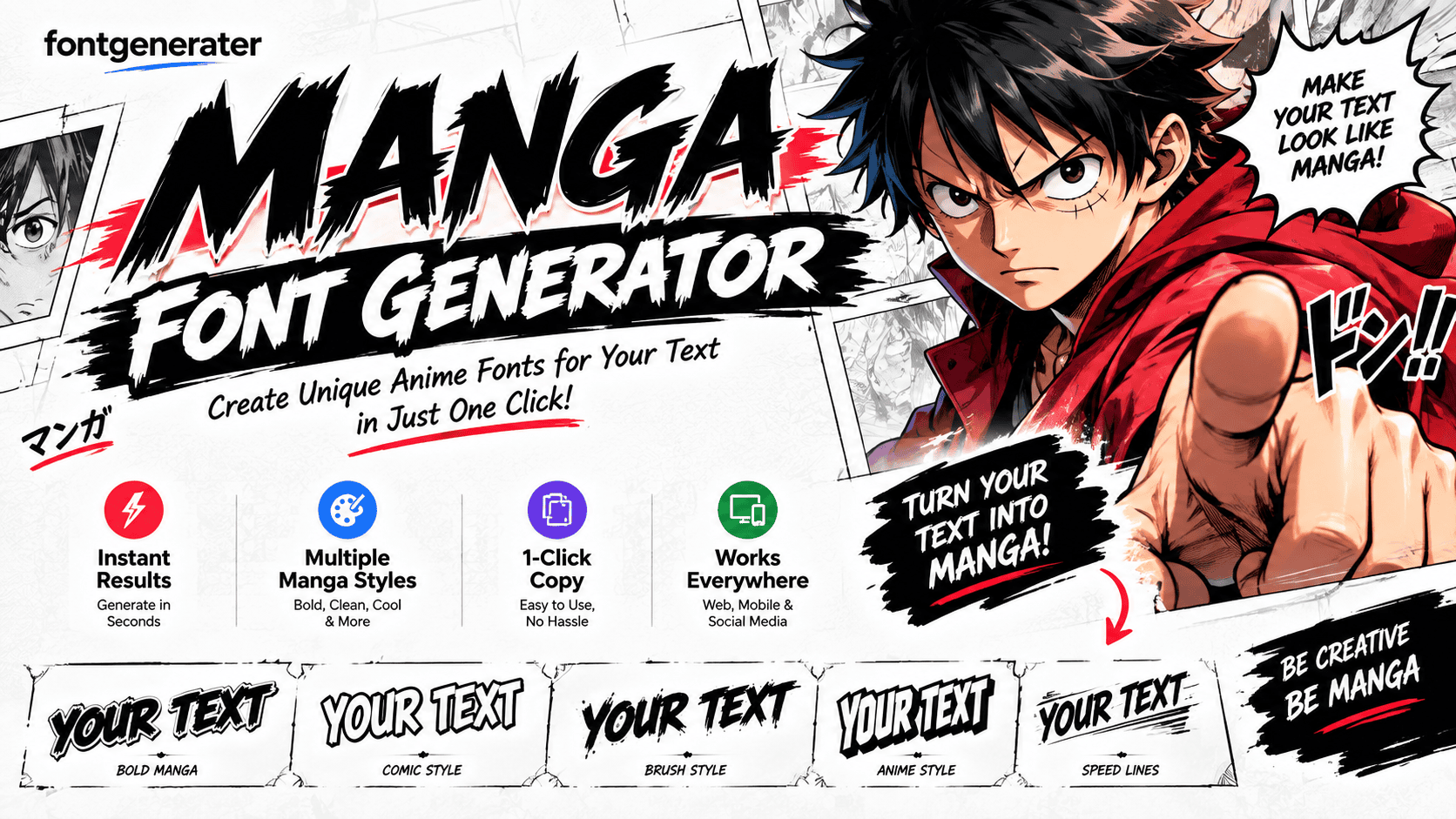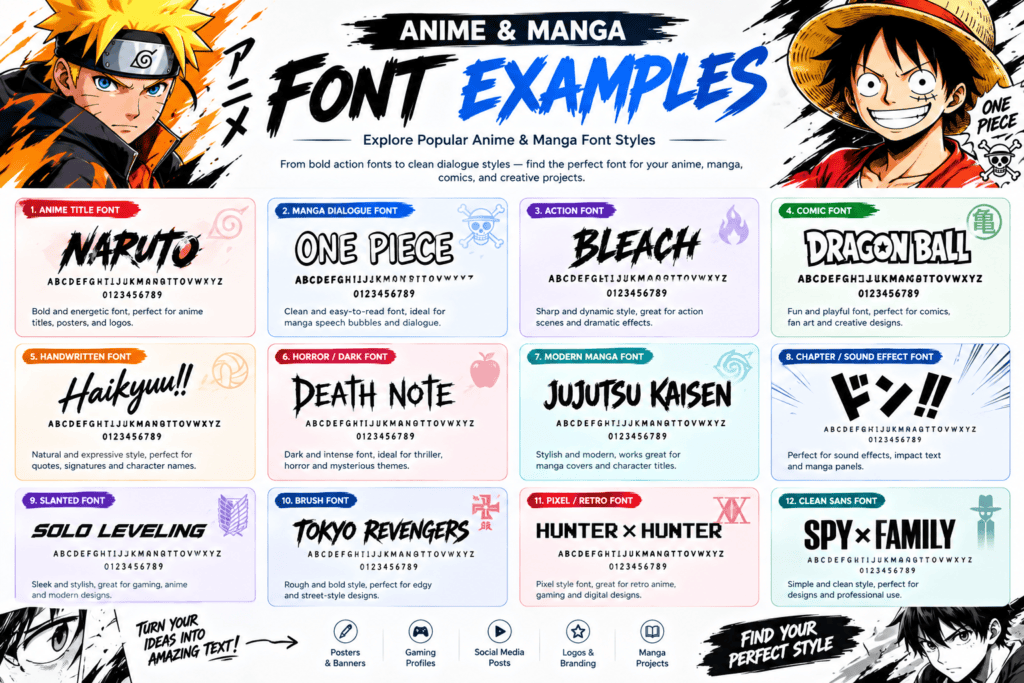
Type your text below to instantly convert it into aesthetic manga & stylish font styles.
From my experience, a manga font generator works best when anime text begins as a practical design choice, not decoration. Users can test font previews, reshape letter shapes, and match dialogue, titles, artwork, or effects.
I look for tools that let creators compare a style quickly, then turn a short phrase into expressive lettering for manga panels, social posts, or YouTube thumbnails. Good generators balance readability, personality, and flexible control.
Start by entering Your own text, then choose a style and preview several options. Use Multiline text when needed, and add line breaks to control stacked lettering before refining the final composition balance overall now.
Adjust Text size, Line height, and Text alignment for readability. Test Outline controls, Background fill, or Transparent backgrounds, then export a PNG image or SVG lettering. The browser handles generation instantly without extra software today.
Manga creators gain from generated previews, deep customization, Live Styles, and real-time feedback, with controls for adjust kerning, letter spacing, alignment, and layout, keeping composition precise even without complex software across detailed creative production workflows.
Beyond styling, Unicode Text generation, special Unicode characters, and text symbols support copy and paste workflows, while the Image Generator, neon gradients, Cyberpunk, 3D perspective, and glitch effects expand visual control for distinctive digital compositions.
Creators use a manga font generator when lettering feels flat beside a chapter title, short dialogue, or sound effect. From experience, Multiple font previews, spacing between lines, No signup required, and No watermarks improve workflow.
These styles also fit Instagram Bios, Captions, Twitter, Discord Server Names, and YouTube Video Titles. For panels, Anime text PNG download serves posts, while Manga text SVG download supports digital layouts, thumbnails, and print layouts.
Anime & Manga Font Examples
Anime and manga examples work when Anime font styles, Manga font styles, Shonen Heavy, and Rounded Bubble treatments match each scene. Dialogue lettering can emphasize emotion, intensity, and sound, while keeping phrases readable and onscreen.
For a cover or Social media posts, I compare Gothic, Cursive, Glitch, Spaced-out styles, Gradient, and Neon before exporting. Practical testing shows typography strengthens title, caption, and sound effect hierarchy without clutter across platforms today.
For practical benefits, anime fonts and manga fonts give a name or title a stronger visual identity. I often customize lettering around artwork, using Bold Anime and Comic Text Effects for even stronger finished compositions.
The workflow also saves time: download PNG or SVG output, then copy and paste it into social media, Instagram, Facebook, or Discord. Unicode supports Universal Compatibility while fully responsive layouts keep results accessible across screens.
Understanding Manga Sound Effects
Effective manga sound effects depend on visual timing, not volume alone. An Explosion may need dense Impact treatment, while Energy marks motion. I use Sharp edges when effects must cut through crowded artwork clearly during production.
Quieter effects benefit from Whisper styling, controlled Bubble forms, and deliberate Text color. Adjusting Outline, stroke, and line height can separate the effect from dialogue while preserving readability, especially in compact panels across tight layouts.
Optimizing Manga Text For Different Genres
Genre-specific manga lettering works best when styles follow narrative pacing. For comedy, airy fonts and playful symbols can keep dialogue light, while action scenes benefit from bold weights, sharper edges, and compact formatting for readers.
I usually test the same phrase across genres before exporting, because intended reading size changes perception. Horror may need Gothic treatment, romance benefits from Script variants, while sports manga often favors bold text and contrast.
Conclusion
A practical conclusion from my manga lettering work is simple: choose manga style deliberately, preview rendered text, and test line breaks before publishing. This keeps punctuation clear while helping every page feel consistent and polished.
From experience, I compare fonts carefully, refine actual words, and check anime style against the surrounding artwork. Reliable downloads matter too, because a polished result should remain useful for editors, posts, profiles, and panels daily.
What Is A Manga Font Generator?
A manga font generator creates manga style and anime style lettering from your words, allowing you to customize text, compare existing fonts, generate previews, and create stylish characters for creative projects, bios, and designs.